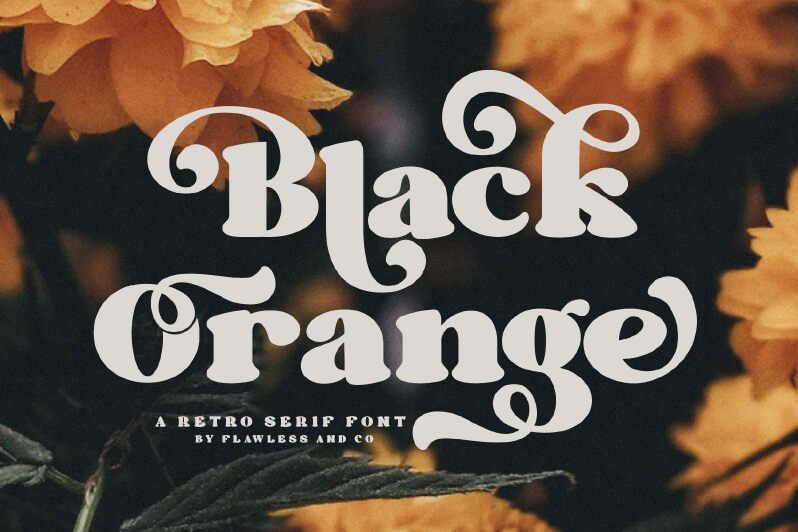
Black Orange Regular
Black Orange font by Achmad Yani of Flawless and co. is a bold retro font that proudly delivers distinct display typography. With expanded letters and a focus on excellent style, the elegant tones transport viewers with a vintage-inspired design that still holds use in modern settings.
Add expressive typography to book covers, posters, magazines, advertising flyers, album covers, branding projects, greeting cards, letters, apparel designs or any other project with this ornamentally confident free display font.